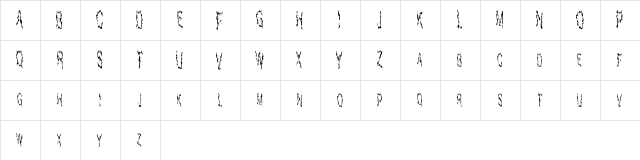
Real Horror Show Regular
Design Context for Real Horror Show Typeface
Real Horror Show leans into the macabre with letterforms designed to disturb and intrigue in equal measure.
Ideal for Halloween projects, horror film titles, haunted house signage, and dark editorial design.
Font Pairing: Pair with a clean neutral sans-serif for body copy to let Real Horror Show's character lead without overwhelming the composition.
Pro Tip: Real Horror Show works best as a headline or focal element. Pair it against plain, neutral body text to amplify the contrast.